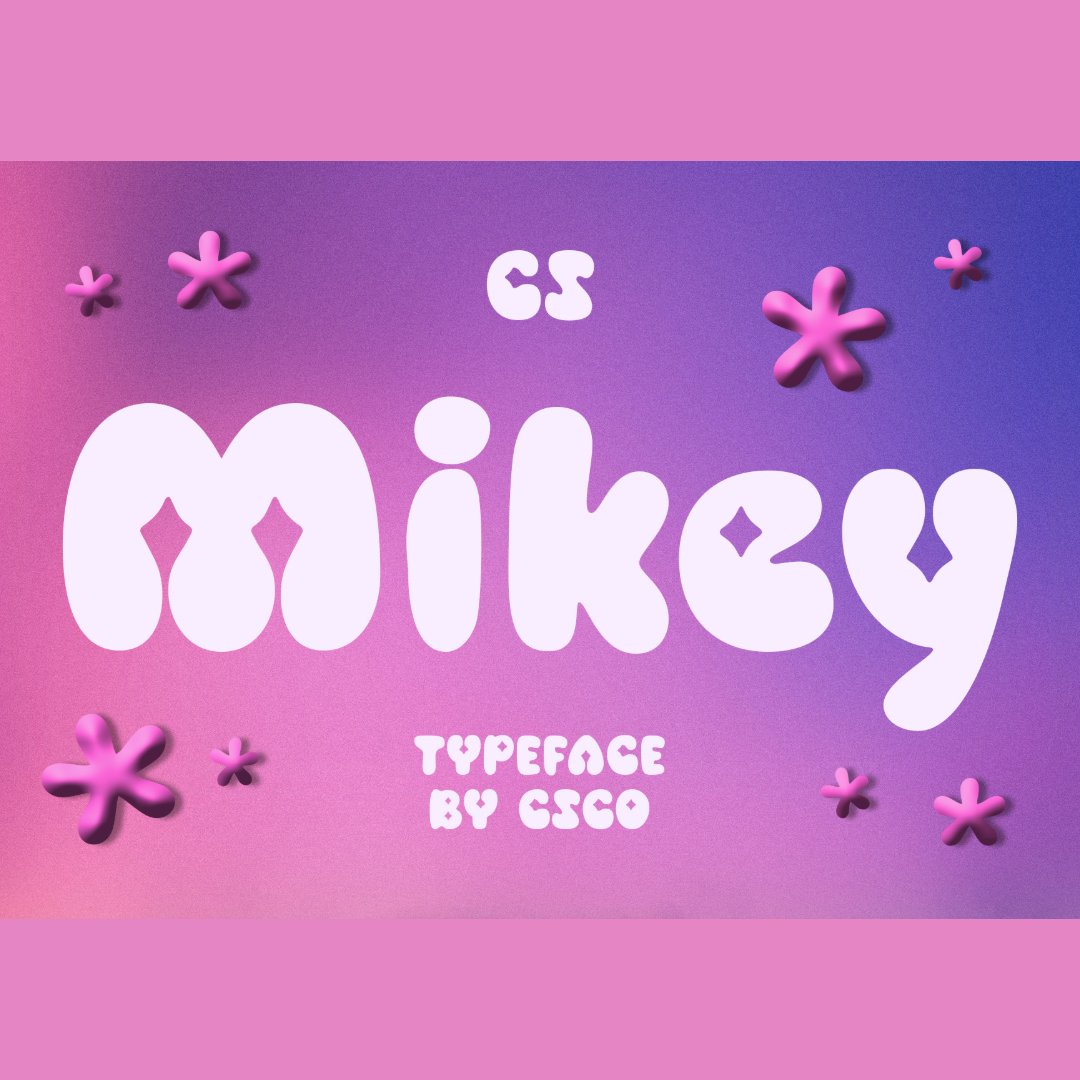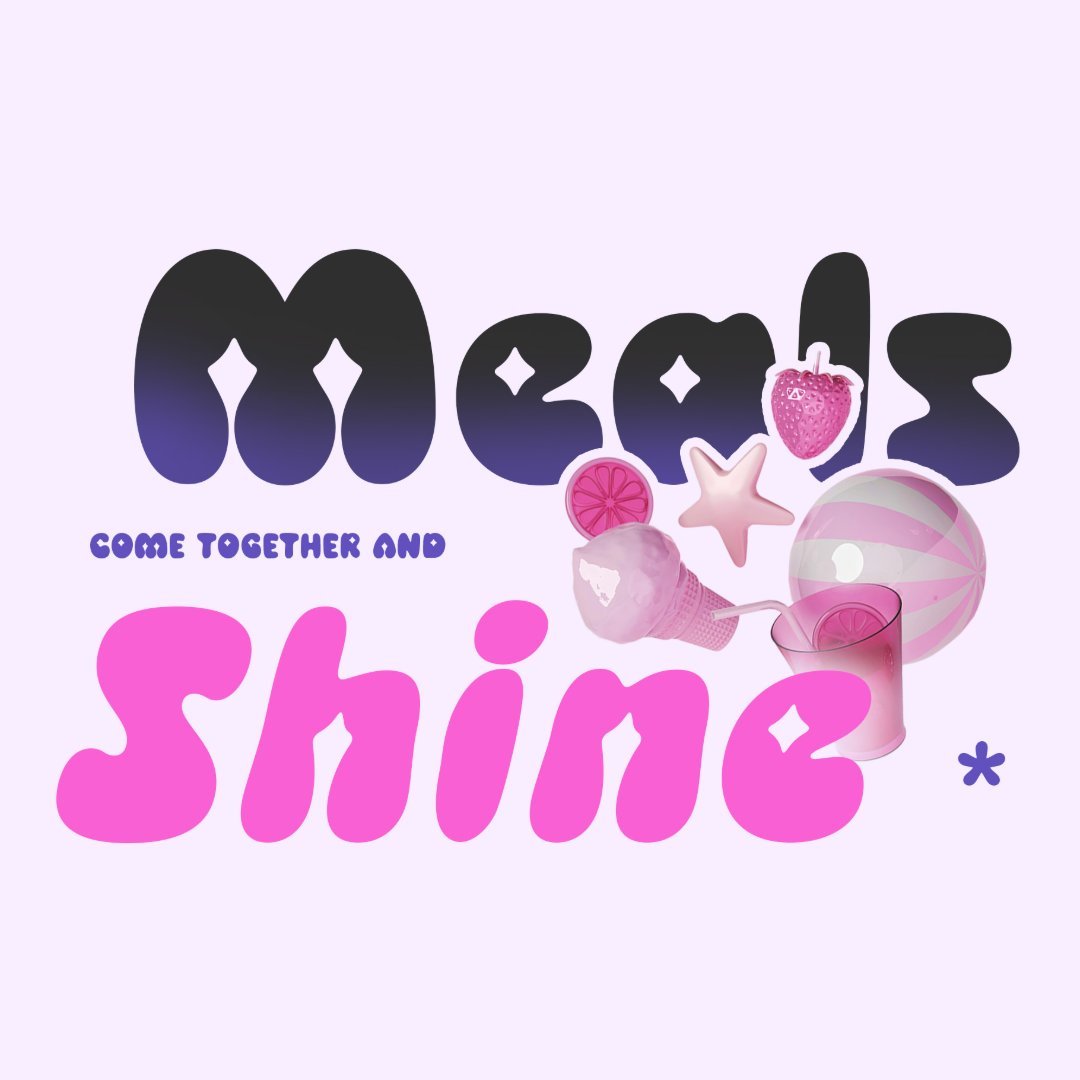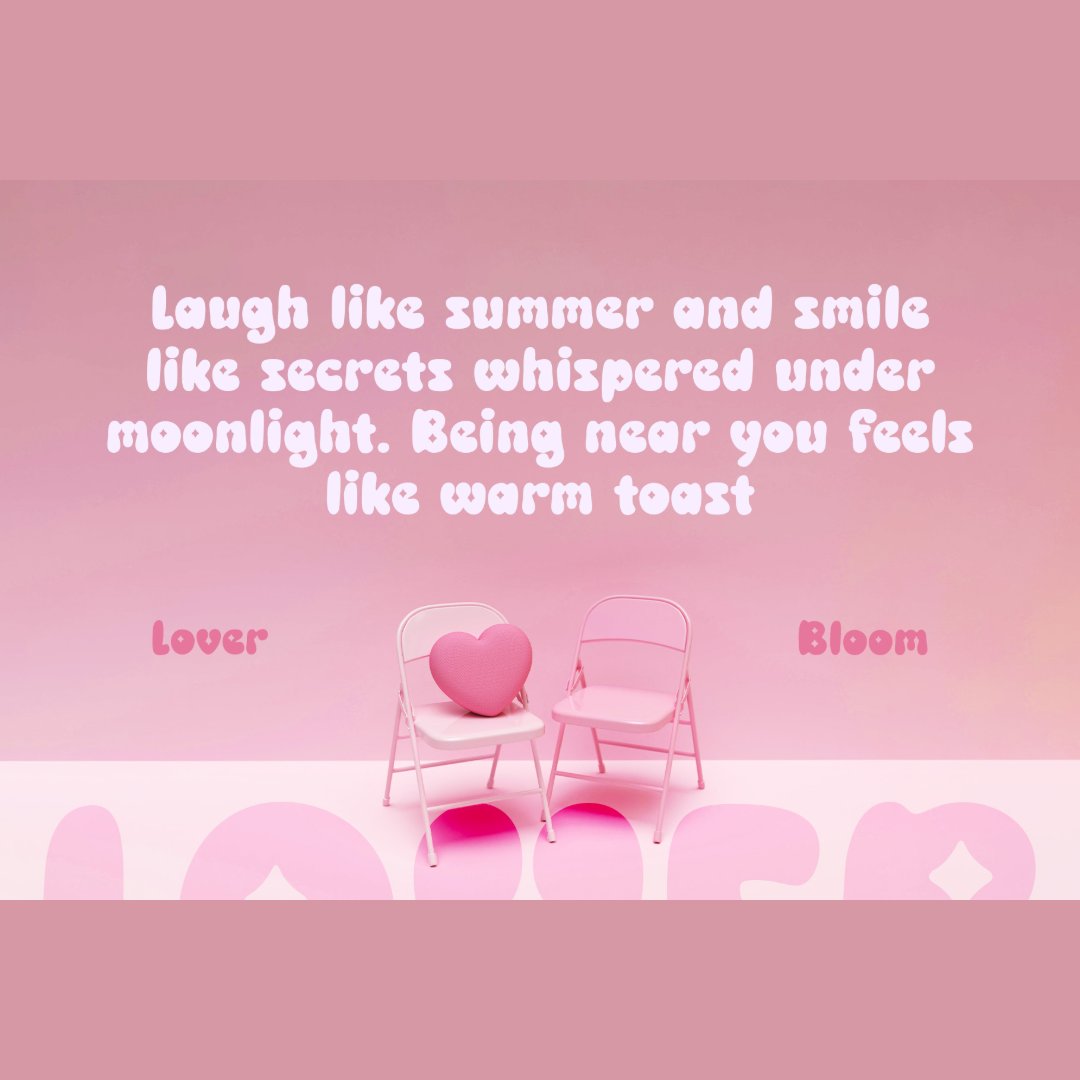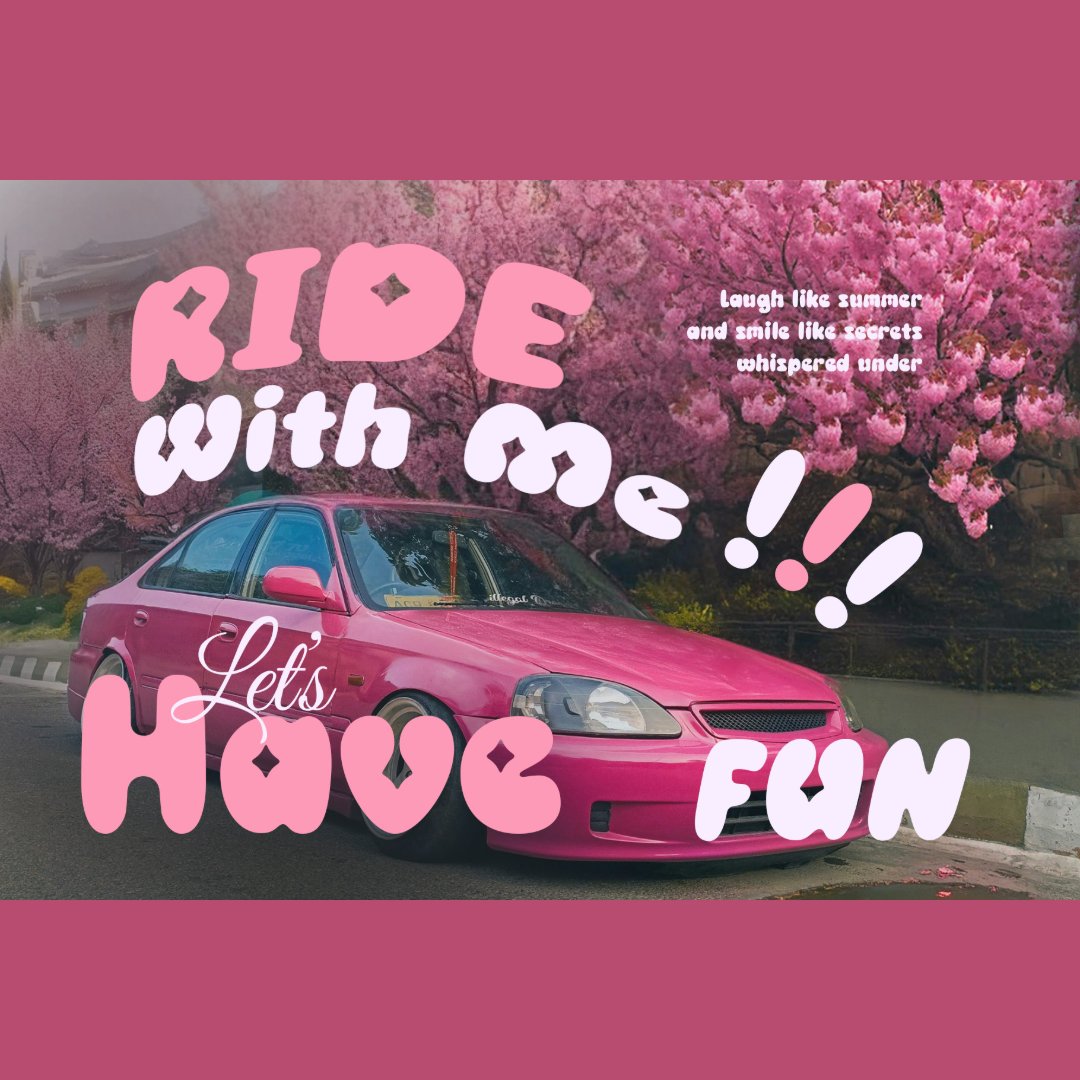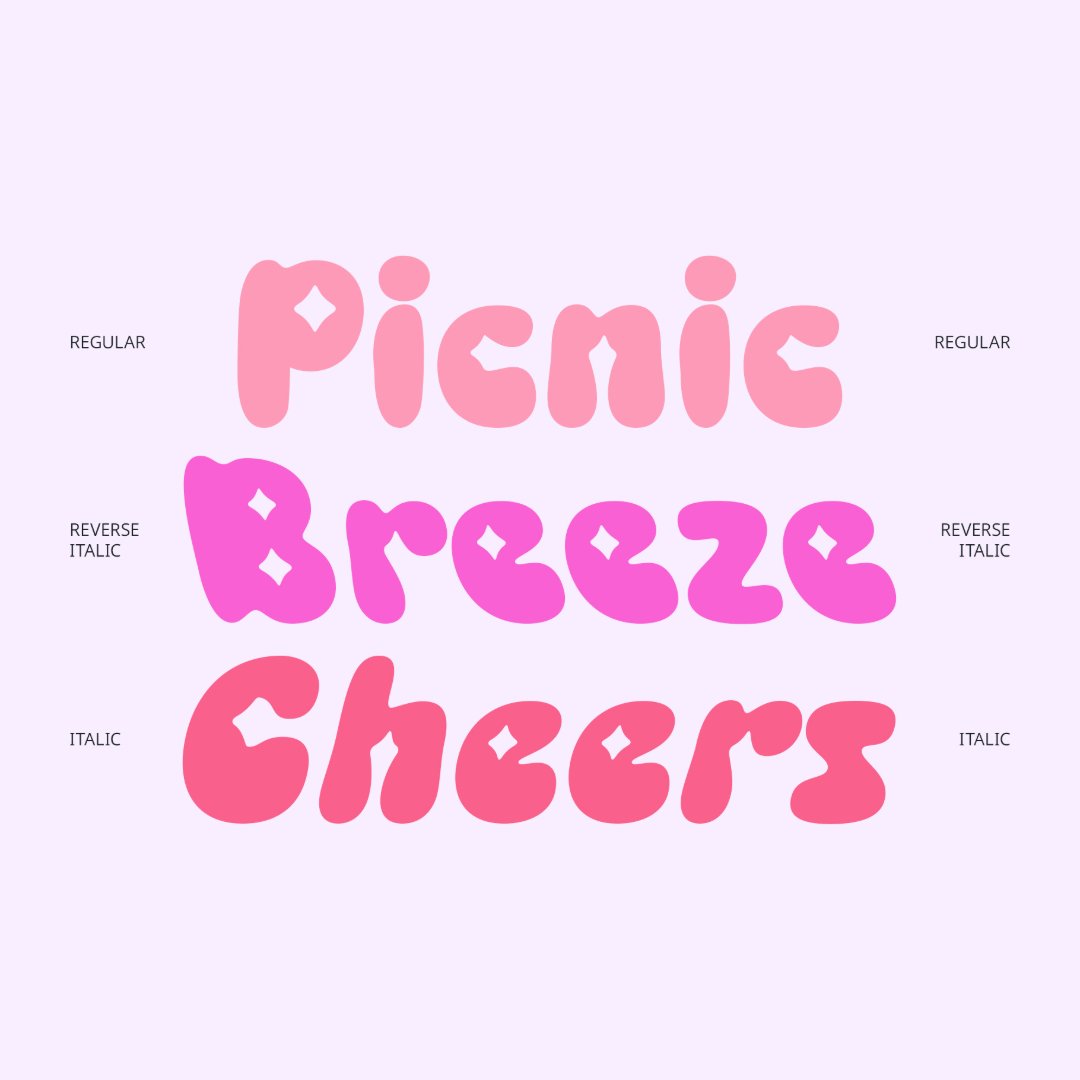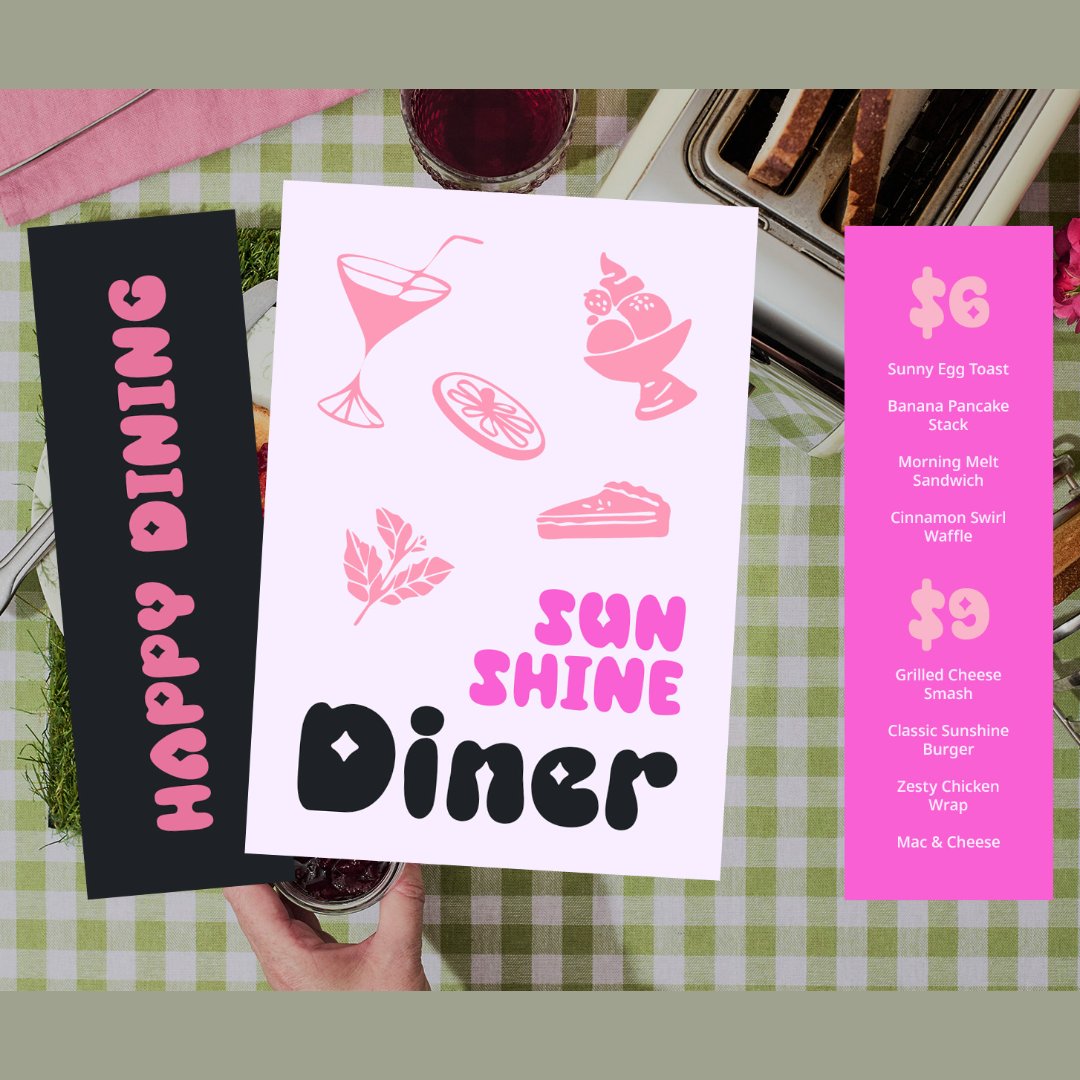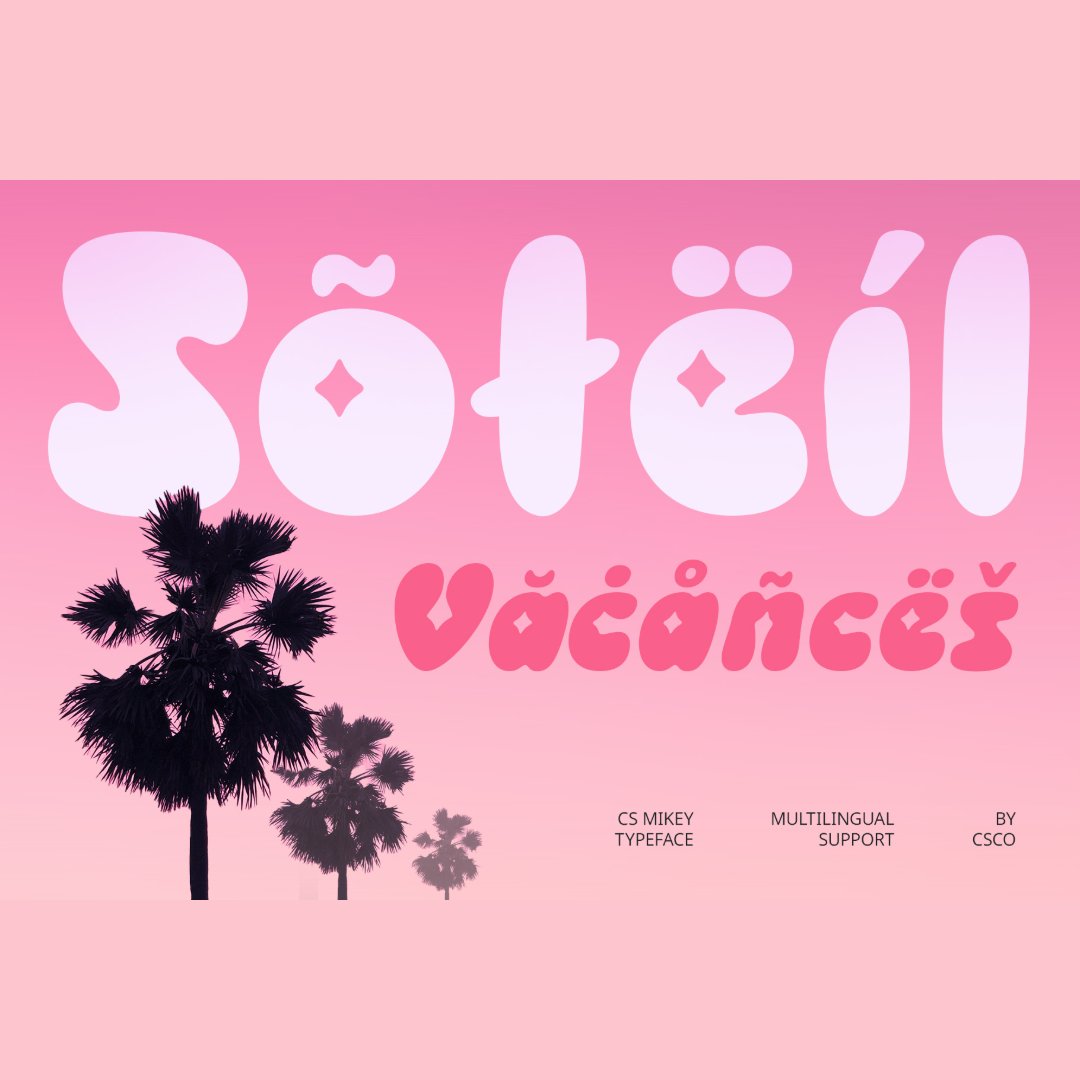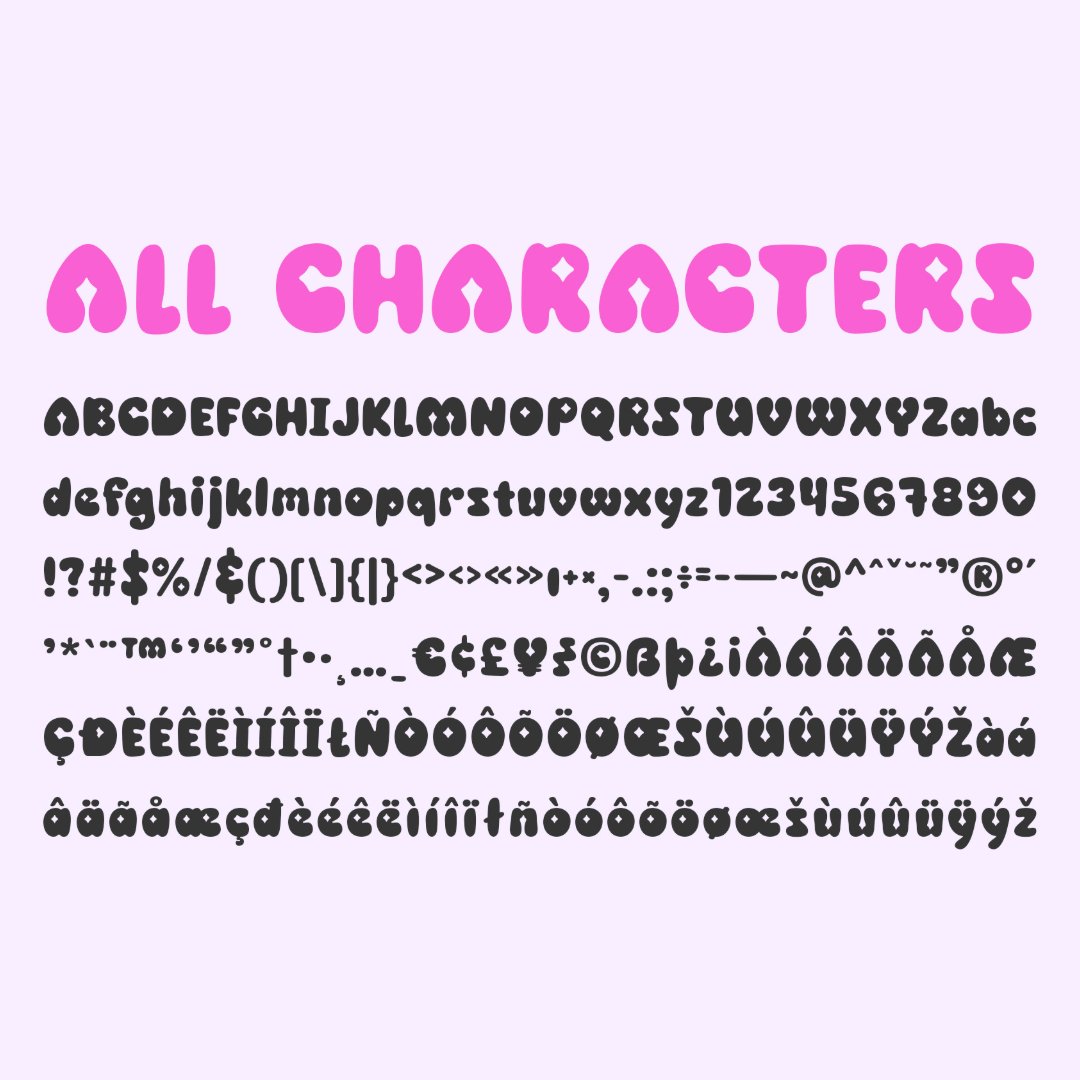
CS Mikey – Bubble Font
CS Mikey – Bubble Font Full of Fun & Personality
Bold, Rounded, and Expressive Letterforms
CS Mikey is a modern display font designed with bold, bubbly shapes and rounded, soft edges that instantly convey a sense of playfulness and joy. Each letter feels inflated with character, bringing a friendly and approachable tone to your designs.
Playful Energy and Funky Aesthetic
The font’s funky vibe and lively rhythm are inspired by playful doodles, childhood nostalgia, and expressive graphic styles. It’s designed to stand out with its exaggerated curves and fun proportions, radiating energy that is both trendy and approachable. This makes CS Mikey ideal for projects that need to be bold, adorable, and filled with joy.
Perfect for Youthful and Joyful Branding
CS Mikey is the go-to choice for youth-oriented branding, fun packaging, toy labels, and playful digital content. Its positive energy shines through in both print and digital applications, making any design feel exciting and full of life.
Infused with Style and Personality
Whether you’re working on a children’s project, creative logo, or vibrant merchandise, CS Mikey adds a burst of character that’s hard to ignore. This font is perfect for designs that want to stand out with adorable flair, colorful vibes, and pure graphic joy.
CS Mikey Regular
CS Mikey Italic
CS Mikey Reverse Italic
CS Mikey – Bubble Font is a modern display font featuring bold, rounded letterforms designed to convey a playful and joyful tone. It includes uppercase and lowercase characters, numerals, punctuation, and supports multilingual accents, available in Regular, Italic, and Reverse Italic styles.